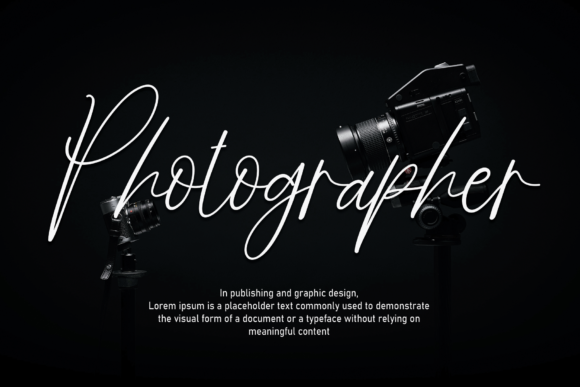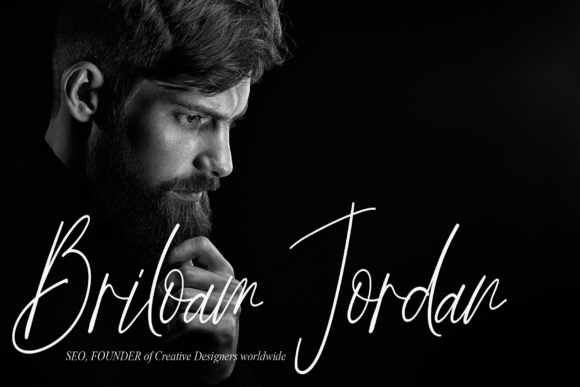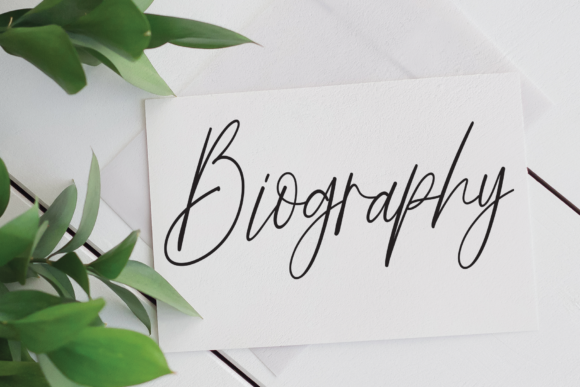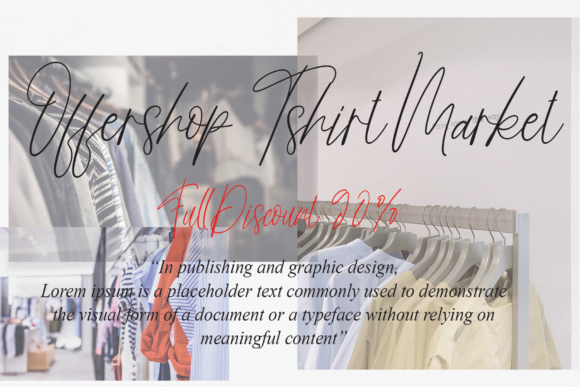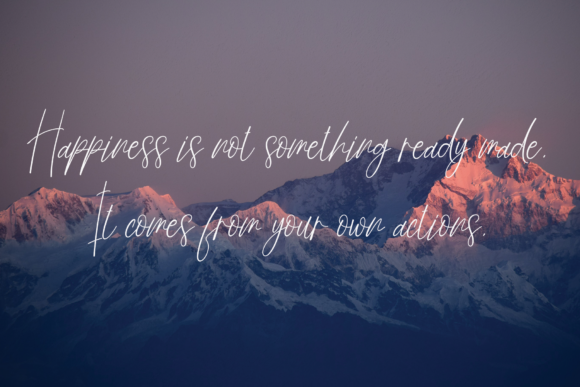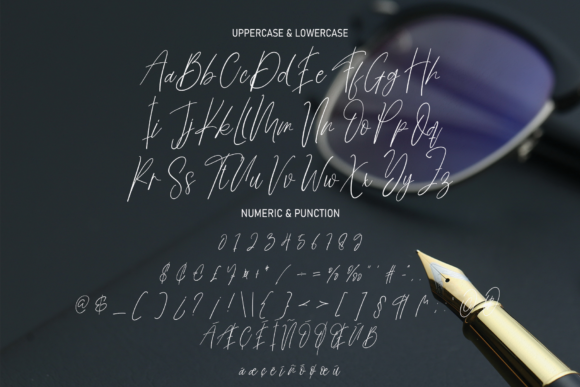
The Perfect Signature: Unlocking the Beauty of Butterfly Signature Font
Have you ever stared at a beautiful handwritten signature and felt an instant connection to the person behind it? Maybe it was a friend’s, a family member’s, or even a famous artist’s – the way those flowing lines and curves danced on the page left an impression that lingered long after you looked away.
As designers, we strive to create that same emotional resonance in our work. That’s where the Butterfly Signature Font comes in – a delicate and fashionable script font designed to make your branding project truly unforgettable. Whether you’re crafting a logo, designing t-shirts, or creating unique products, this font is the perfect tool to add a touch of elegance and sophistication.
For designers, the Butterfly Signature Font is a valuable asset – it’s versatile, easy to use, and guaranteed to elevate your creative projects to the next level. With its intricate details and subtle flair, it’s the perfect choice for anyone looking to leave a lasting impression.
Butterfly Signature Font Key Features
- Font Type: Script Font
- Unique Characteristics: Hand-drawn, cursive style with elegant flourishes and subtle texture, perfect for creating beautiful signatures and handwritten text
Butterfly Signature Font Review
I recently had the chance to work with the Butterfly Signature Font, and I must say it’s a lovely addition to any design project. Here are my thoughts:
- Floral Touch**: The font’s whimsical feel is perfect for designs that require a touch of elegance and sophistication.
- Flexibility**: Butterfly Signature Font can be used for a wide range of applications, from invitations to social media graphics.
- High-Quality**: The font is well-designed, with crisp lines and smooth curves that make it a pleasure to work with.
- Readability**: At smaller font sizes, the script can become difficult to read, making it less suitable for body text.
- Font Pairing**: The font’s unique style may not pair well with more modern or bold fonts, requiring some experimentation to find the perfect match.
Overall, I’m impressed with the Butterfly Signature Font’s versatility and charm. While it may have some limitations, it’s a great choice for designers looking to add a touch of sophistication to their projects.
The Butterfly Signature Font is perfect for:
- Personal branding and marketing materials.
- Artistic and creative projects.
Alternatives to Butterfly Signature Font
Pacifico is a beautiful, elegant script font that is perfect for creating a sense of luxury and sophistication. It is ideal for wedding invitations, branding, and other high-end designs. Pacifico is more refined and polished than Butterfly Signature Font, making it suitable for formal and professional applications.
Carolyna Pro is a modern script font with a unique blend of elegance and playfulness. It is great for creating eye-catching titles, headings, and logos. Carolyna Pro has a more fluid and dynamic feel compared to Butterfly Signature Font, making it perfect for designs that require a sense of movement and energy.
Great Vibes is a modern script font with a relaxed, casual feel. It is ideal for creating a sense of friendliness and approachability. Great Vibes is more laid-back and informal than Butterfly Signature Font, making it suitable for designs that require a sense of warmth and hospitality.
Alex Brush is a elegant script font with a classic, timeless feel. It is perfect for creating a sense of sophistication and refinement. Alex Brush has a more subtle and understated feel compared to Butterfly Signature Font, making it suitable for designs that require a sense of subtlety and restraint.